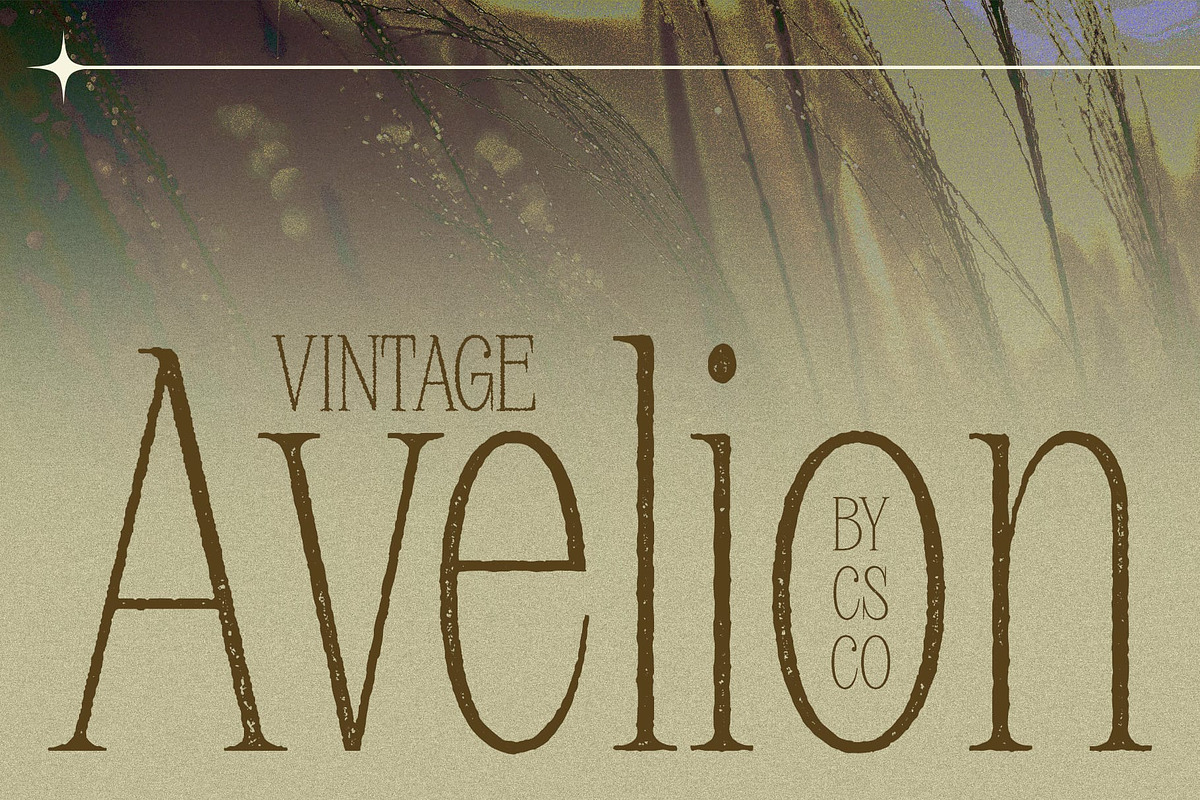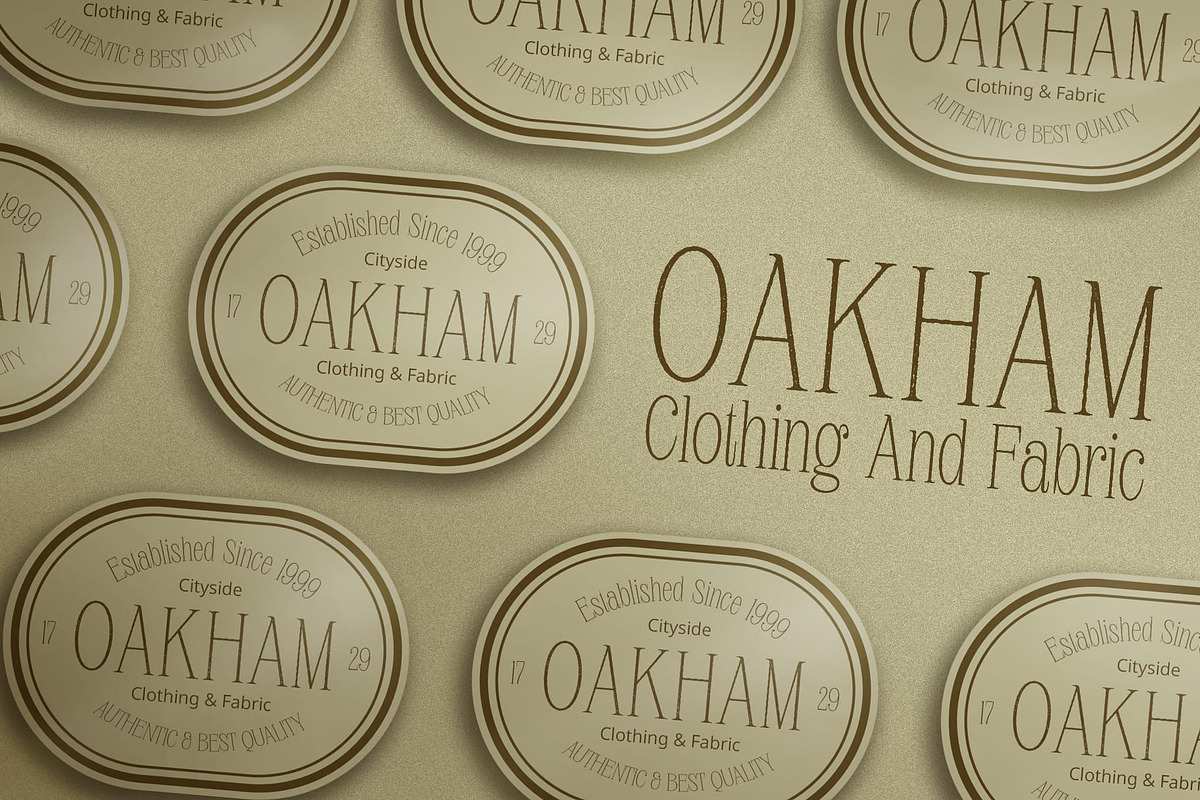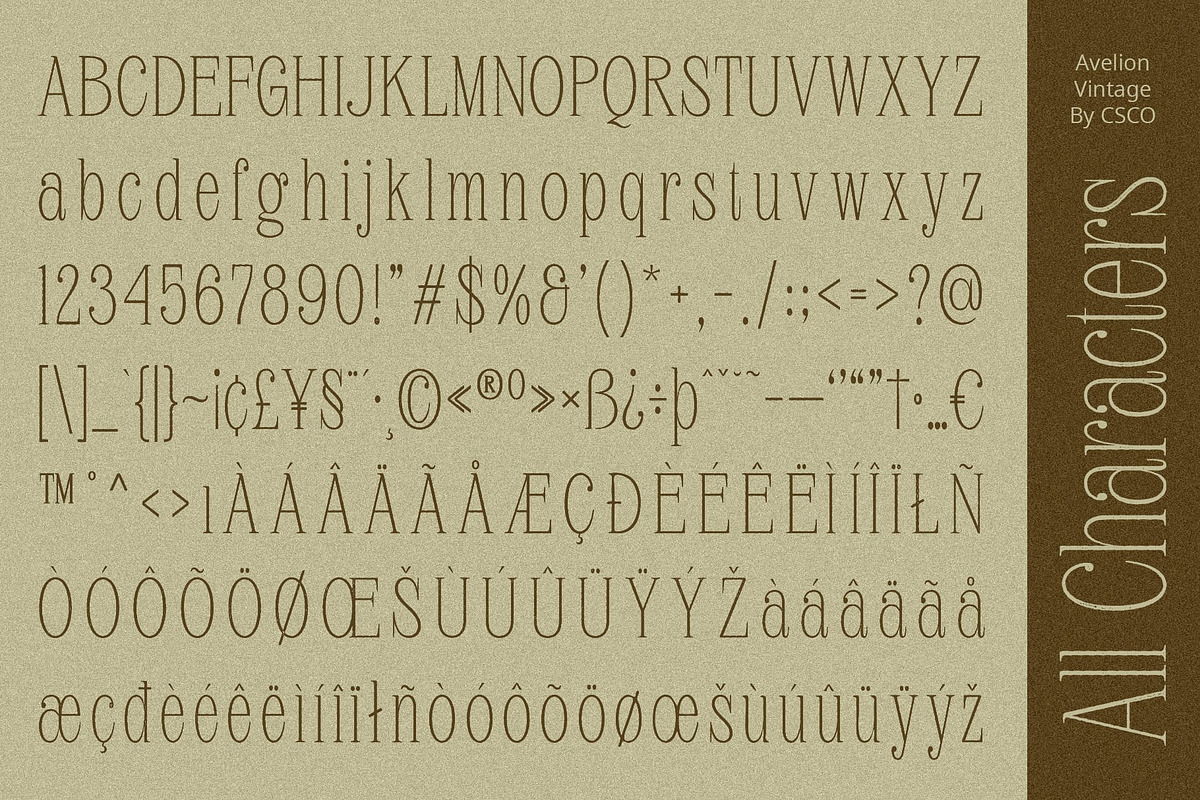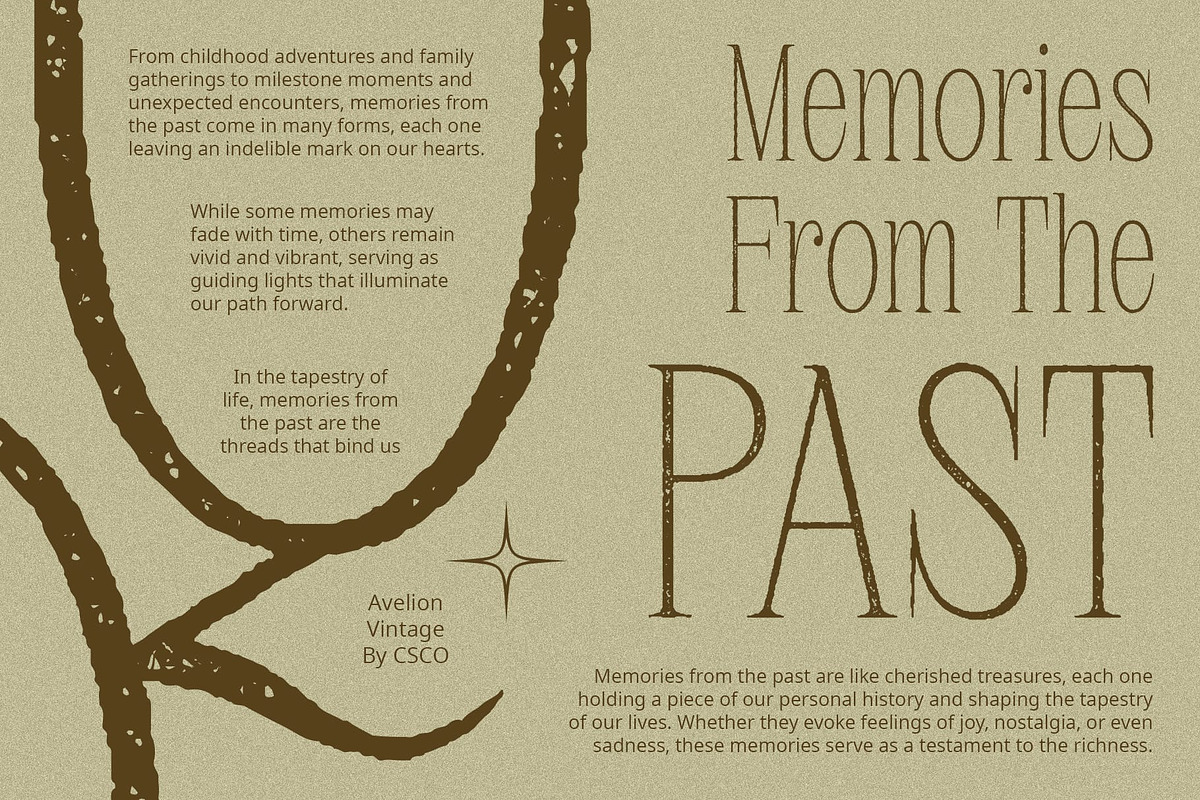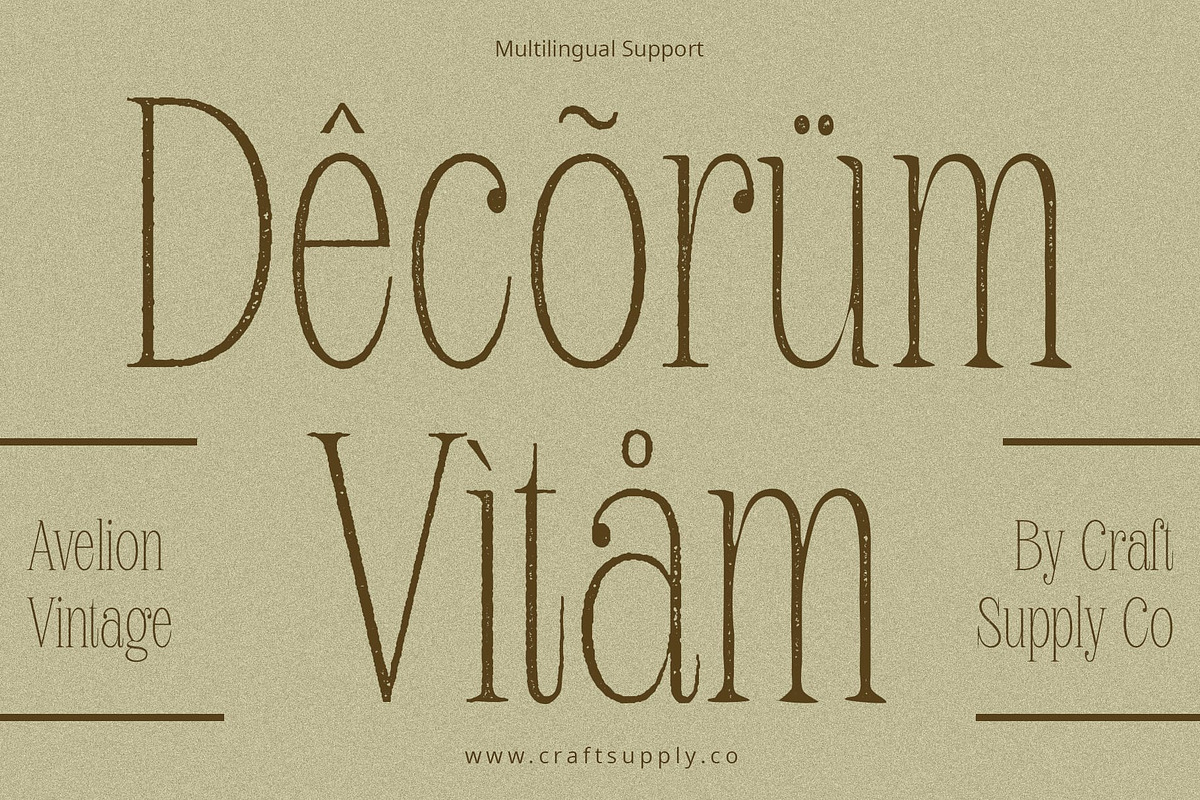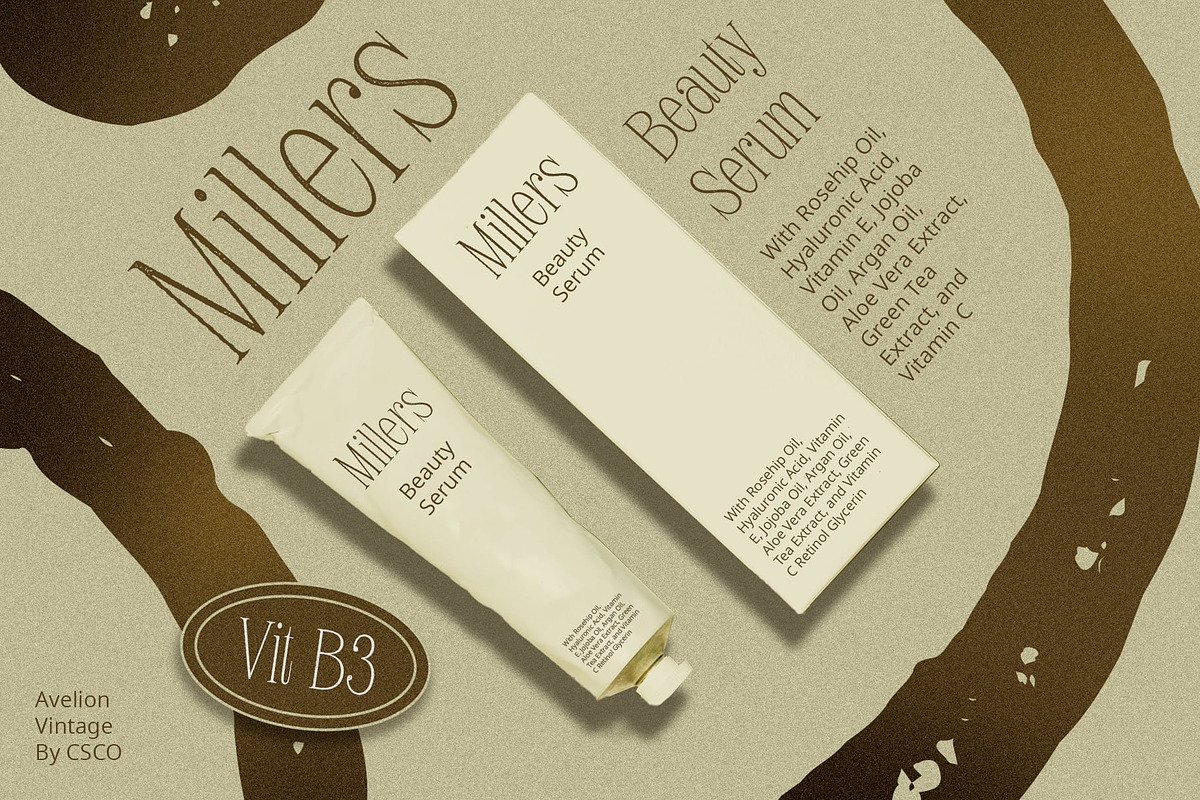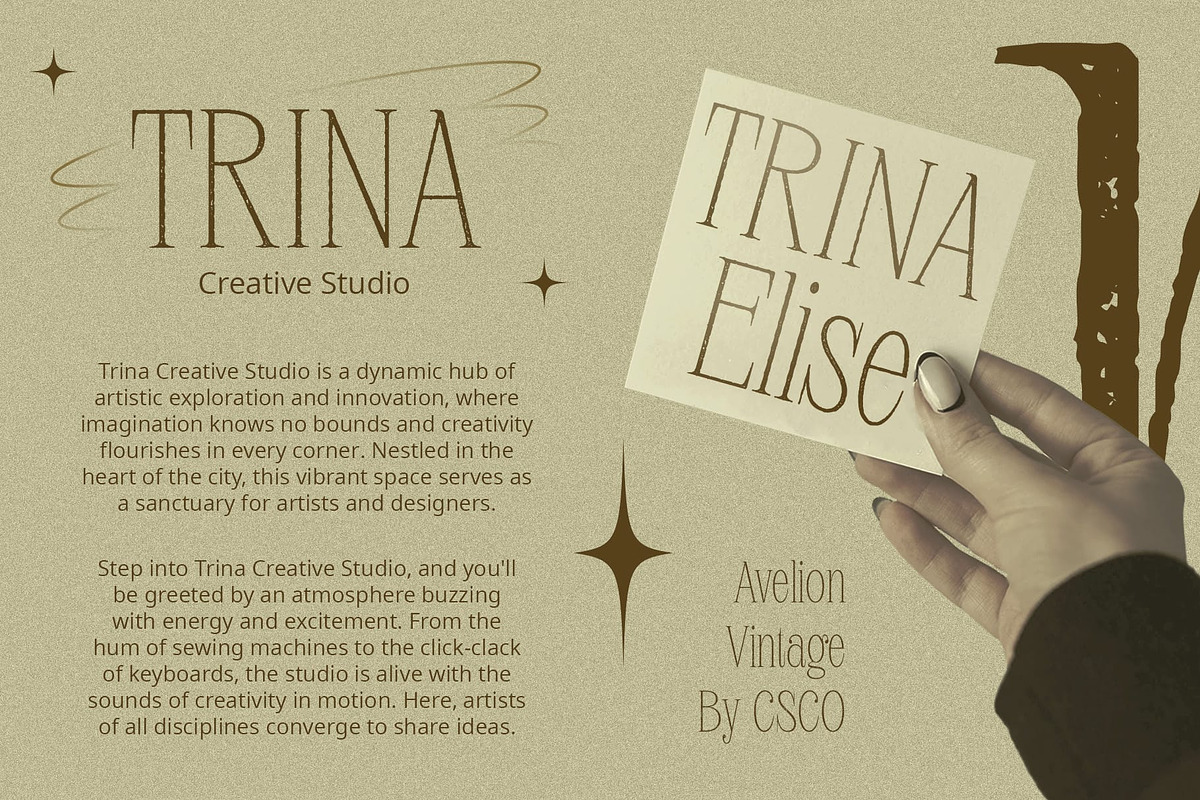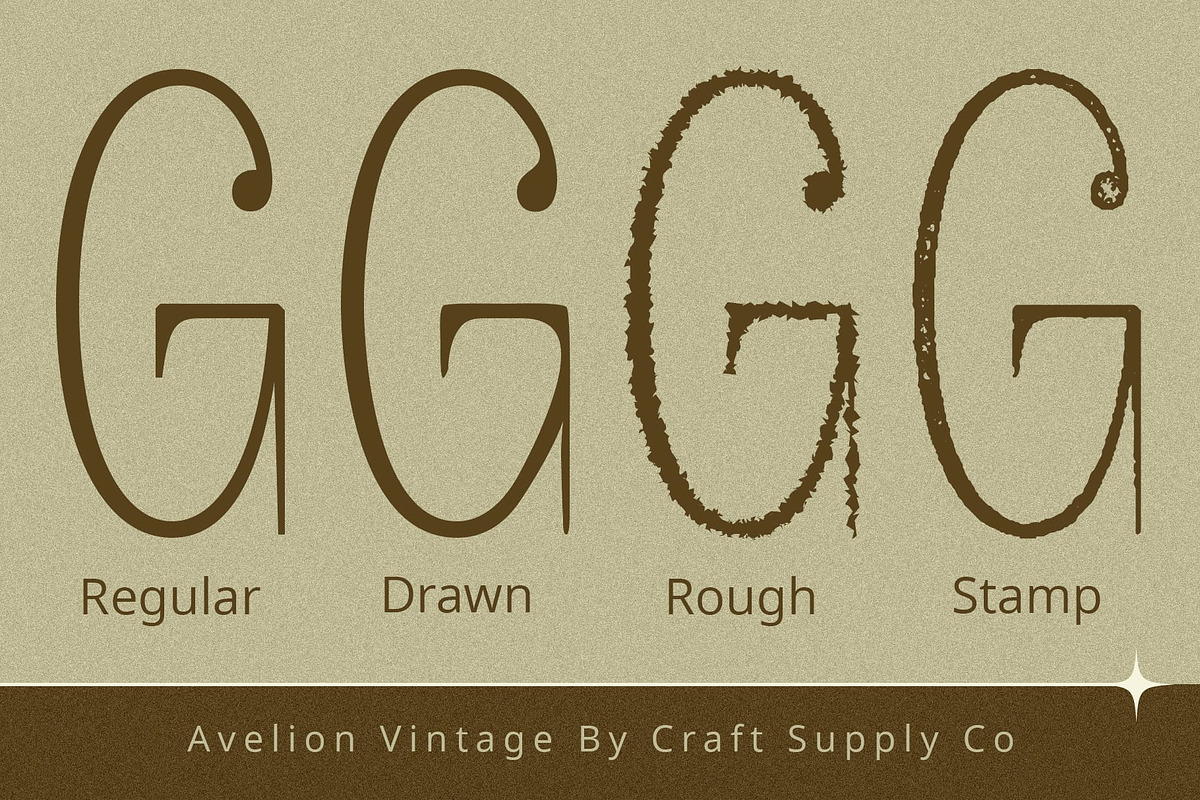
Avelion Vintage
Avelion Vintage: Blending Nostalgia with Modern Flair
High X-Height Serif Display for Maximum Impact Avelion Vintage stands out with its high x-height serif display, ensuring that your message is clear and impactful in any design project.
Condensed Form and Subtle Contrast The font’s condensed form and subtle contrast create a sleek and contemporary look, making it ideal for designs that demand sophistication without overwhelming the viewer.
Vintage Effects: Adding Depth and Character With vintage effects like stamp, drawn, and rough textures, This font adds depth and character to your designs, evoking a sense of nostalgia and authenticity.
Cute Yet Impactful: Versatility at Its Best Despite its vintage-inspired roughness, This font maintains a cute and charming demeanor, making it versatile for a wide range of design applications, from retro branding to modern editorial layouts.
The Perfect Blend of Old and New This font seamlessly blends nostalgic charm with contemporary flair, offering designers a font that’s both timeless and trendy. Whether you’re creating a retro-inspired poster or a sleek modern website, This font adds an extra layer of style and personality to your designs.